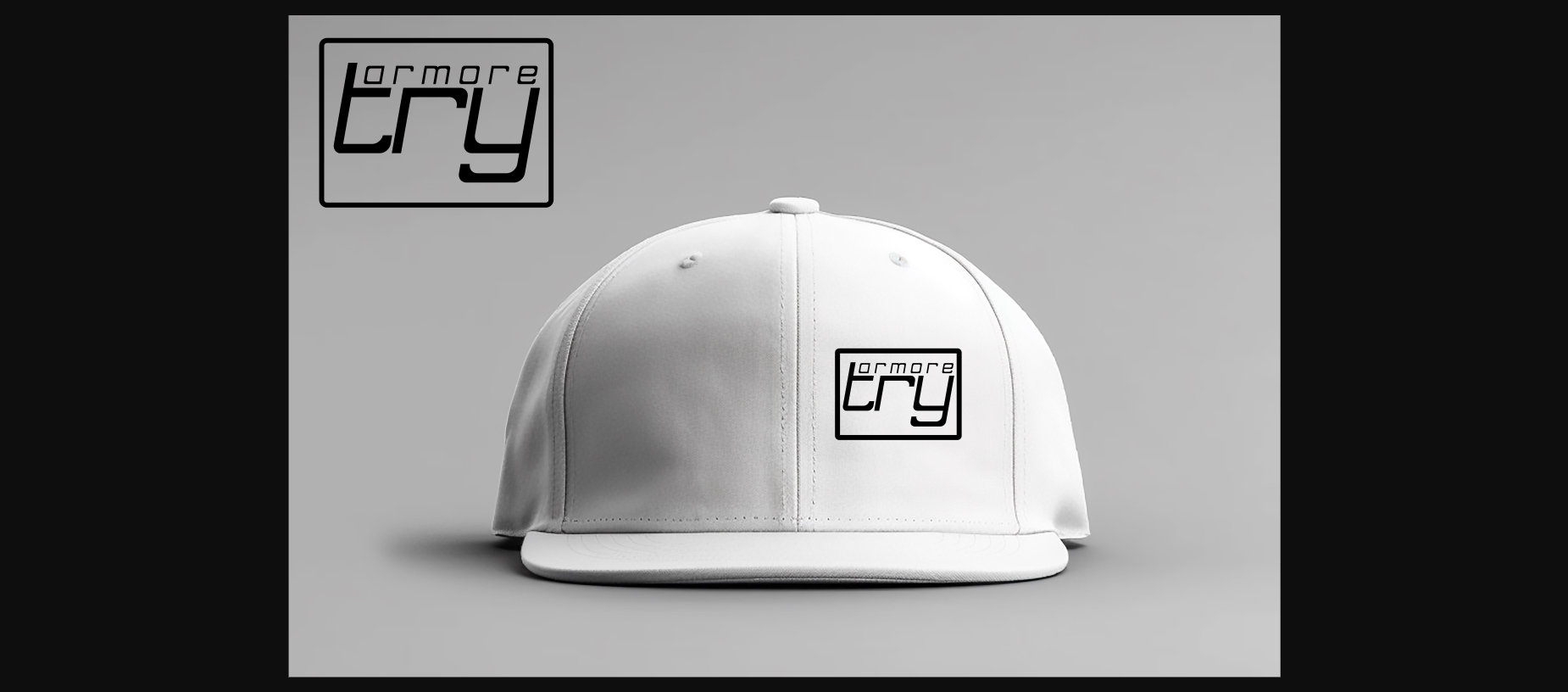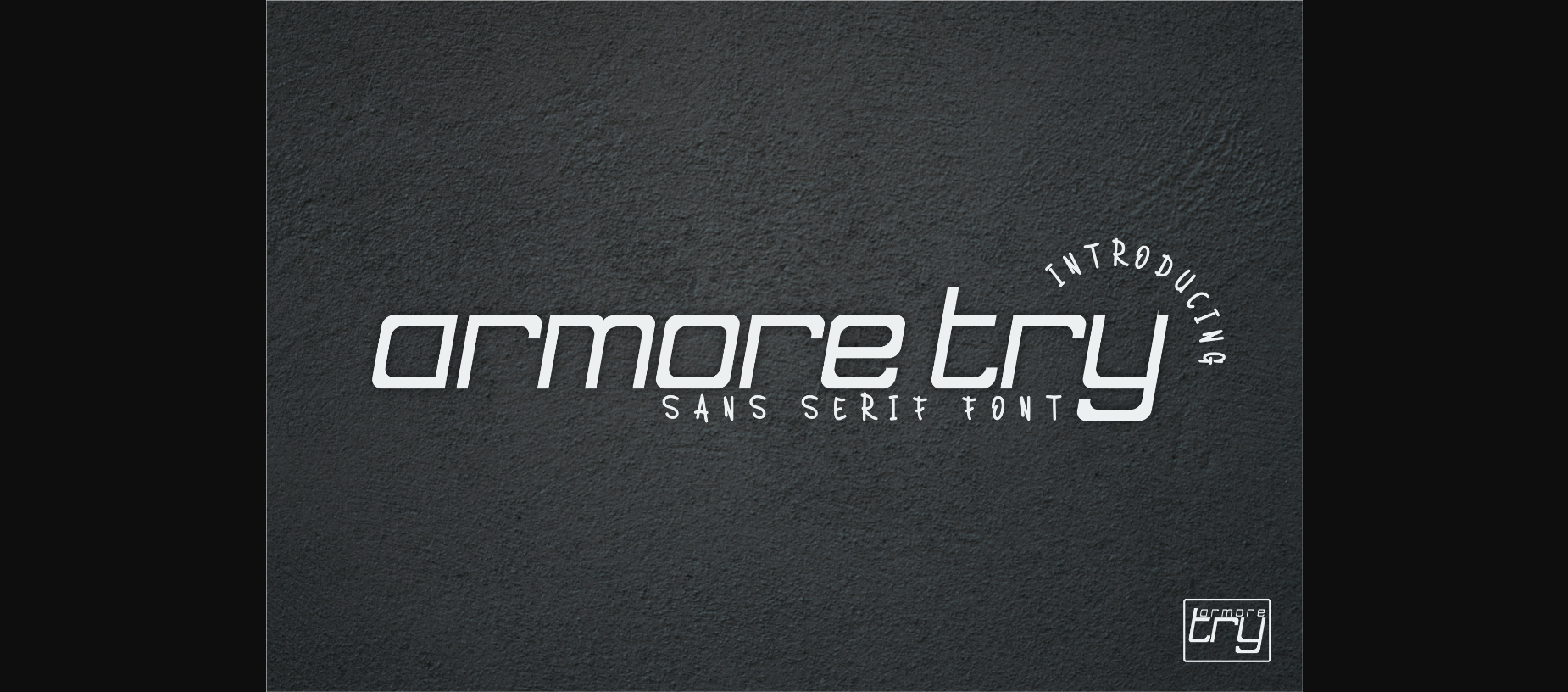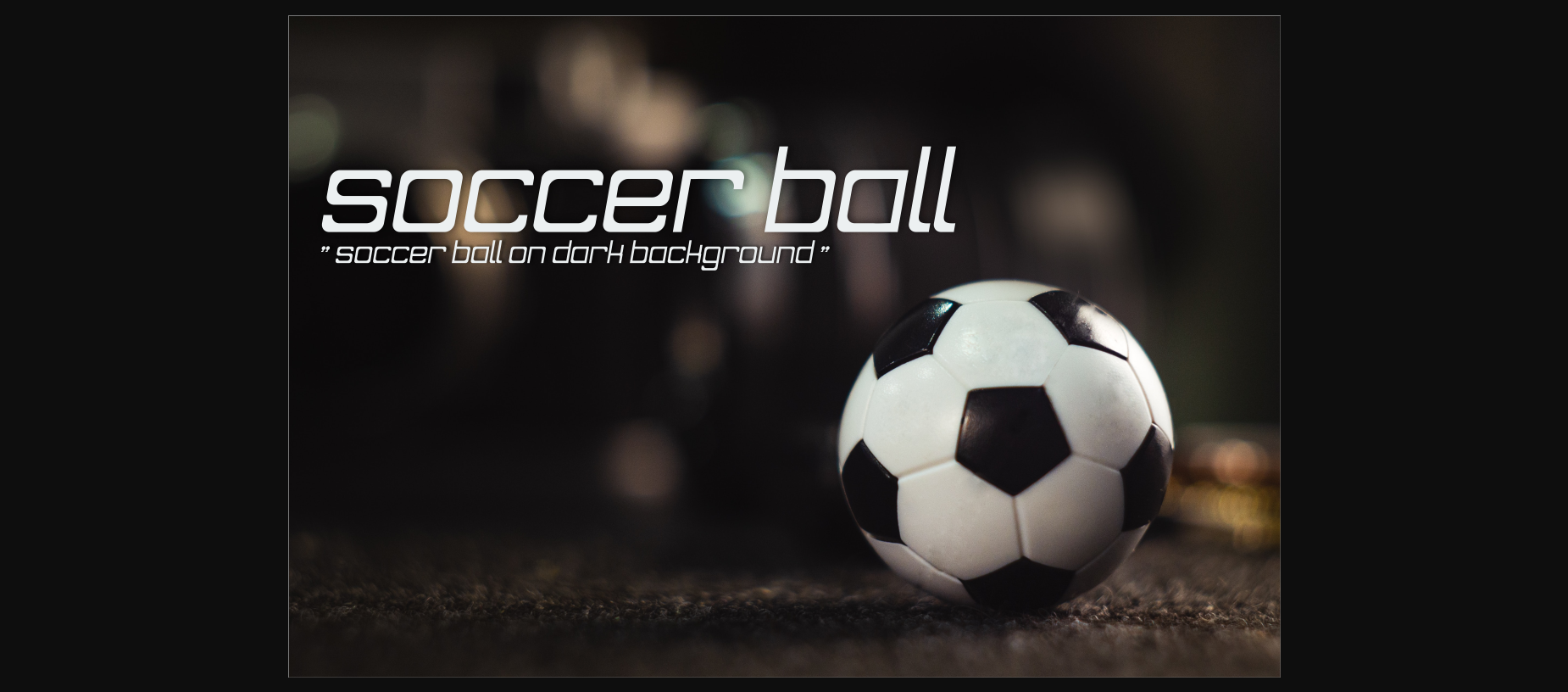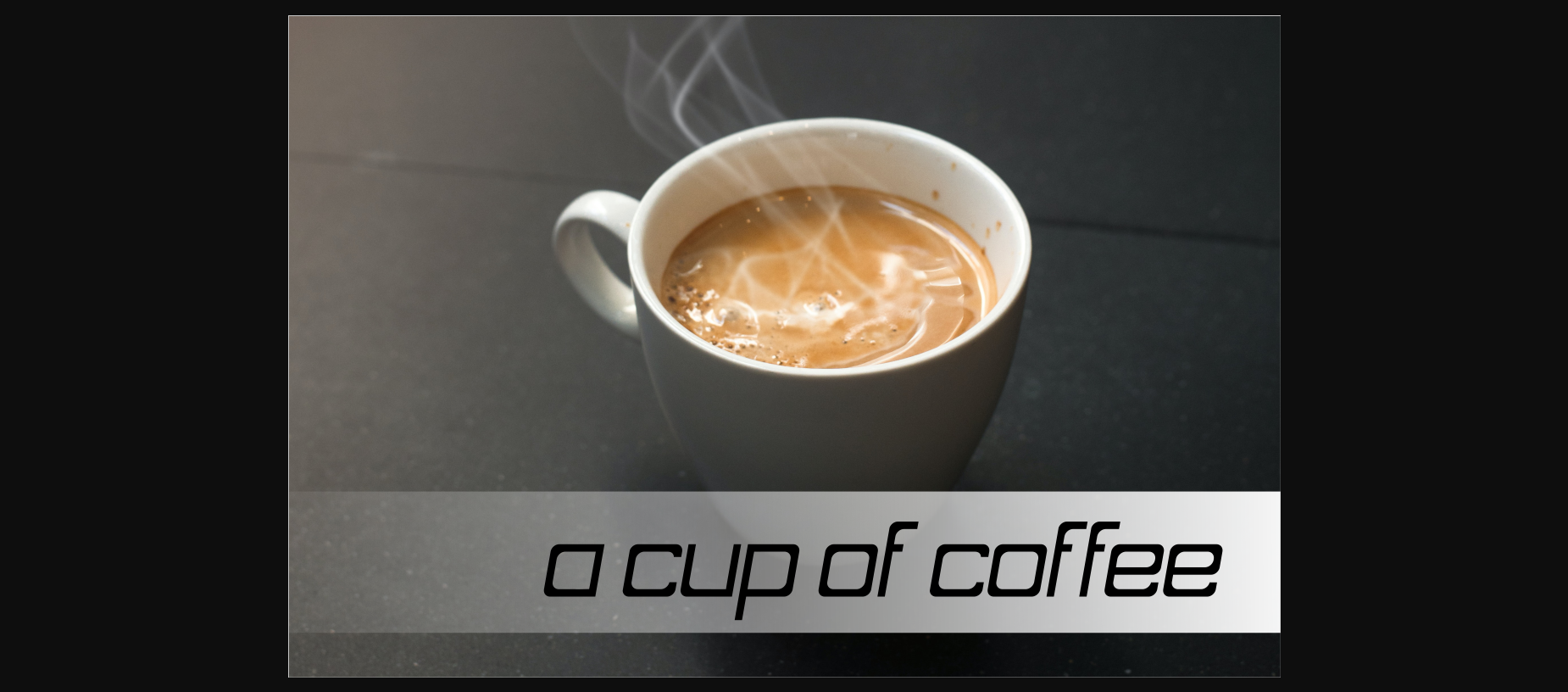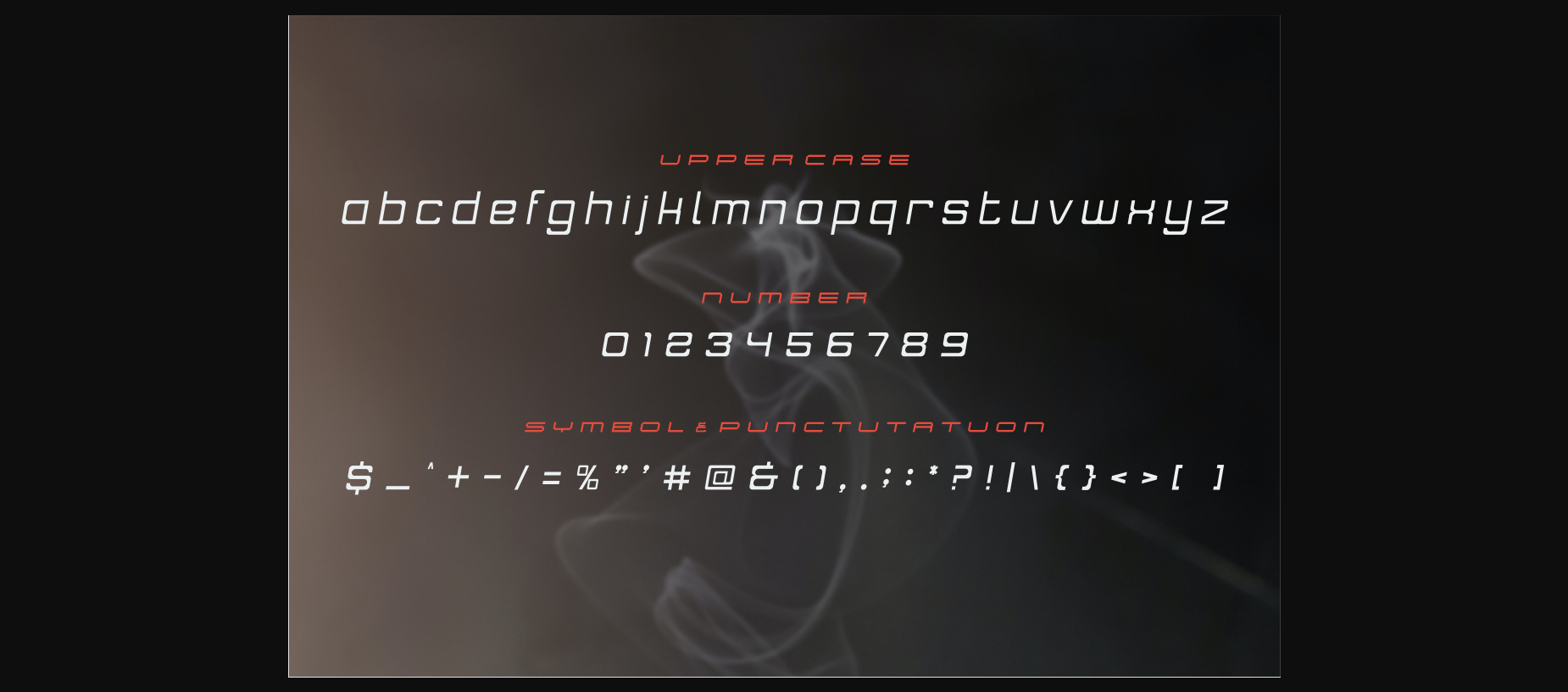
Armore Try Font
About Armore Try Font
We engineered this font from a basic sans serif font which we changed to a more modern style. This font can be used for creative products such as screen printing or placing sports and food fonts. We just accented it with lowercase letters, which we thought would be awesome.